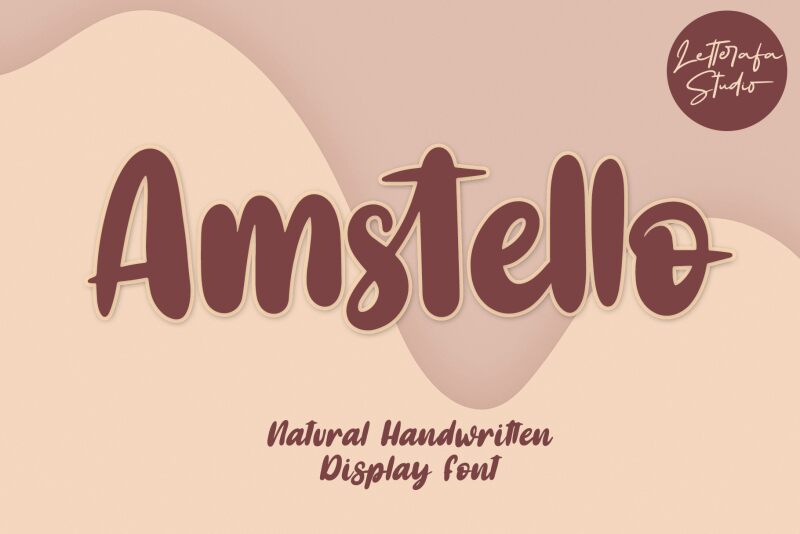
\nAmstello font centers around handwritten, daring, and rounded finishing strokes. Designed by Letterafa Studio, the brush typeface is bold with a smooth appearance perfected by its approachable nature and professional look. It is defined as casual yet signature-like, signifying its modern branding potential.
Use this Amstello free bold brush font for all your celebratory or party invitations on weddings or birthdays or any other type of business cards and typographic logo designs. It can also be used to design advertisements for shops or clothing brands, both printed as posters and online on websites and blogs, in addition to other simple projects like book titles or magazine covers.